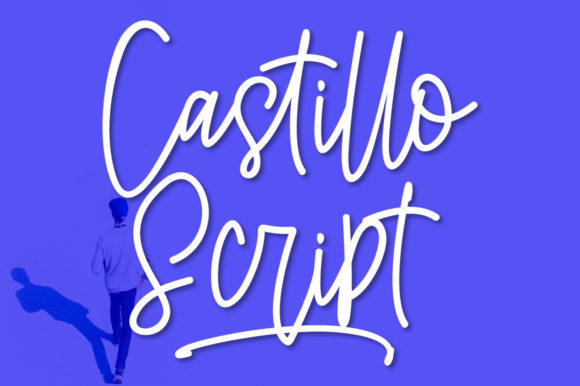
Step into the world of Castillo, a signature script font that embodies elegance and authenticity like no other. A visual masterpiece crafted by masinong, Castillo is the missing piece to your creative arsenal, ready to elevate any design project to breathtaking heights.
With its sweeping curves and graceful strokes, Castillo dances across the page, captivating the senses and leaving a trail of beauty in its wake. Each letter is a testament to the artistry behind this font, meticulously designed to convey a sense of authenticity and charm.
Whether you're a designer, a blogger, or simply someone who appreciates the beauty of typography, Castillo is your gateway to a world of creativity and self-expression. Its versatility knows no bounds, effortlessly adapting to a myriad of projects, from wedding invitations and logos to social media posts and branding materials.
Imagine the impact Castillo will have on your next design. Its timeless appeal will add a touch of sophistication to your projects, attracting attention and making a lasting impression. Your designs will radiate authenticity, captivating your audience and leaving them yearning for more.
With Castillo, you're not just downloading a font; you're inviting a muse into your creative space. Let its elegant strokes inspire you, its graceful curves guide you, and its authentic charm infuse your projects with a touch of magic.
Castillo is more than just a font; it's a gateway to a world of creativity, authenticity, and beauty. Embrace its elegance, unleash your imagination, and watch as your designs transform into works of art.